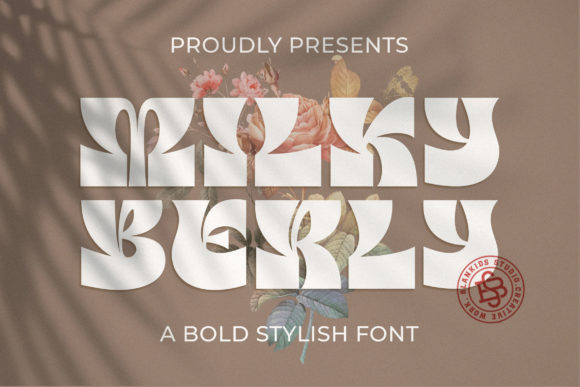
Step into the world of Milky Berly, a font that embraces individuality and sparks imagination. Inspired by playful and quirky typography, this singular font exudes character and charm. Its bold and stylish strokes dance across the page, demanding attention and captivating hearts.
With Milky Berly, your designs will break free from the ordinary, leaving a lasting impression on those who encounter them. Whether gracing the cover of a captivating children's book, adding a touch of whimsy to your packaging designs, or lending a playful vibe to your merchandise, this font is the perfect choice for those seeking a unique and unforgettable visual experience.
Milky Berly is a versatile font, adapting seamlessly to a variety of creative endeavors. Its unique style shines on posters and flyers, drawing eyes and igniting curiosity. It effortlessly elevates logotypes and branding designs, adding a touch of personality and distinction. And when used in digital designs, Milky Berly captures the essence of playfulness and creativity, making your online presence truly unforgettable.
As a display font, Milky Berly excels in capturing attention and conveying a distinct message. Its bold lines and playful curves create a visual symphony that captivates audiences and leaves a lasting impression. It is the perfect choice for creating eye-catching headlines, impactful social media posts, and vibrant website designs that demand attention.
With Milky Berly, you have the power to transform ordinary designs into extraordinary works of art. Its unique style sparks creativity and invites you to explore new possibilities. Whether you're a seasoned designer or just starting your creative journey, this font will ignite your imagination and empower you to create designs that resonate with your audience.
So, embrace the playful spirit of Milky Berly and let your creativity soar. Let your designs stand out from the crowd, capturing hearts and leaving an indelible mark on the world.